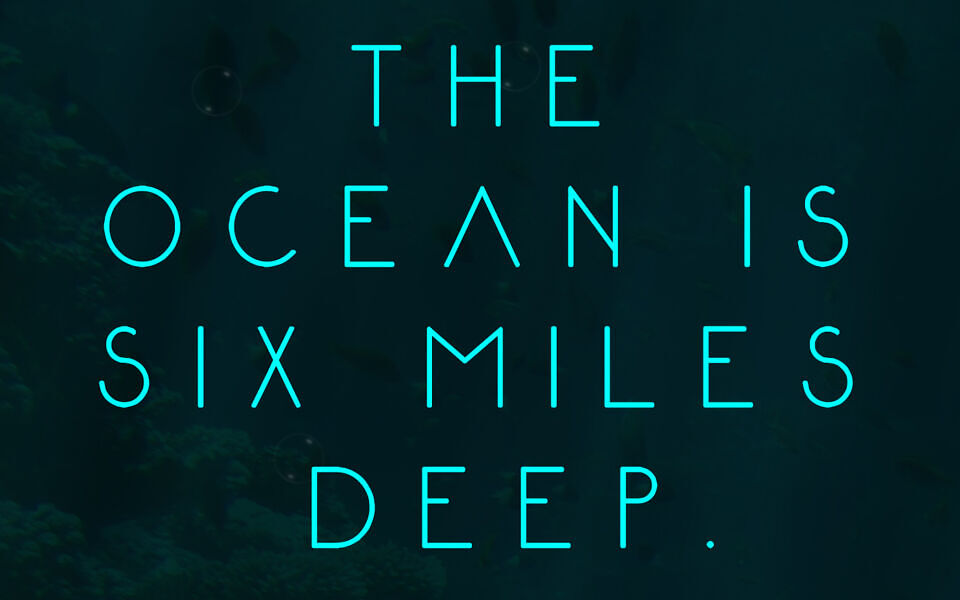
Abyssopelagic Font
Abyssopelagic is a free minimal sans serif thin typeface. The author’s aim was to make a typeface that will look nice when spacing out the letters.
The font was designed and developed by Mark White, an expectational designer from United Kingdom.